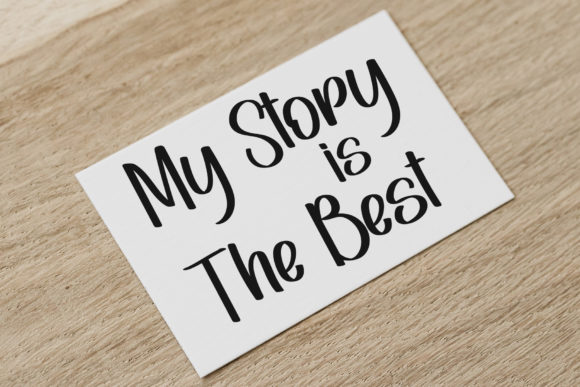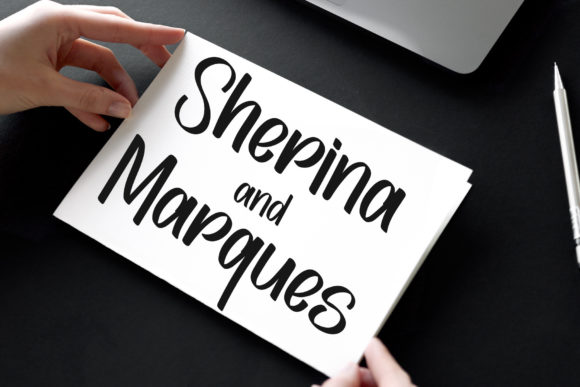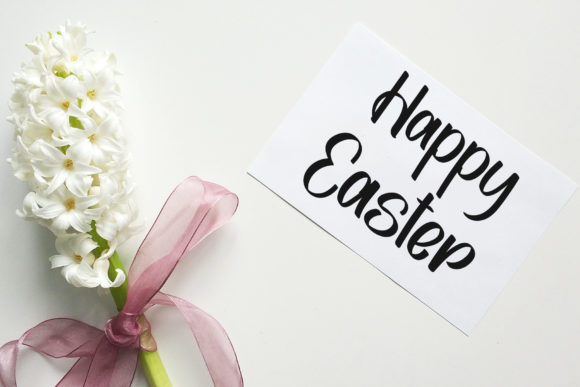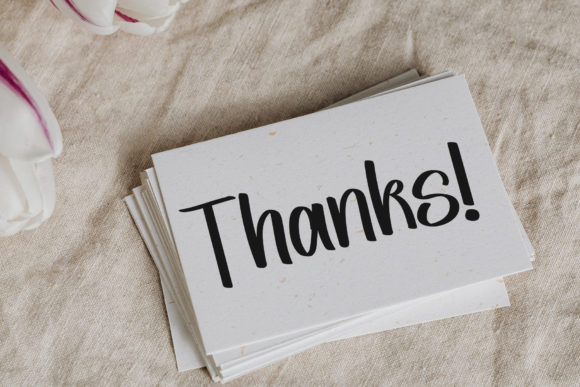
Smoothing Font
About Smoothing Font
“Smoothing” is a font characterized by its simplicity, friendliness, and adorable handwritten style. This versatile font is a perfect match for a wide range of design concepts. Its ability to add a sense of playfulness and adaptability to your projects makes it a valuable tool in your design arsenal.
The charm of “Smoothing” lies in its unpretentious handwritten appearance, which exudes warmth and approachability. Its simple yet endearing strokes and characters contribute to an aesthetic that resonates with a friendly and inviting vibe. This font seamlessly adapts to different contexts, offering flexibility and versatility.
Whether you’re working on creative designs that need a touch of charm, branding materials that require a friendly appeal, or any project where a cute and adaptable element is desired, “Smoothing” becomes a valuable asset. Its delightful charm can add a layer of personality and positivity to your work.
Incorporating “Smoothing” into your design projects means embracing its simple, friendly, and cute attributes. By harnessing its unique charm, you’re enhancing the visual allure of your work and ensuring that your designs resonate effectively with your intended audience. This font becomes a versatile tool to infuse your creations with a touch of playfulness and adaptability.